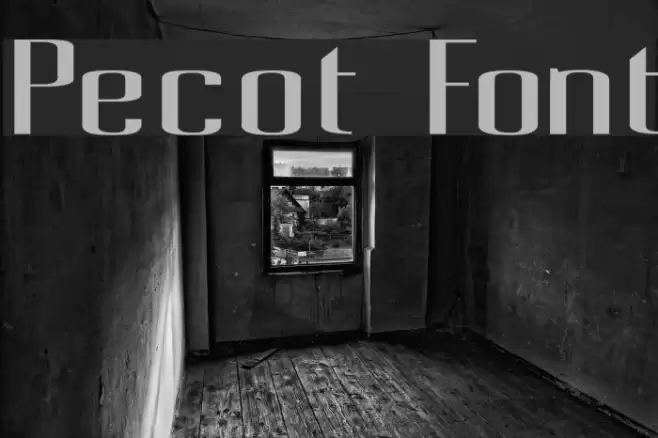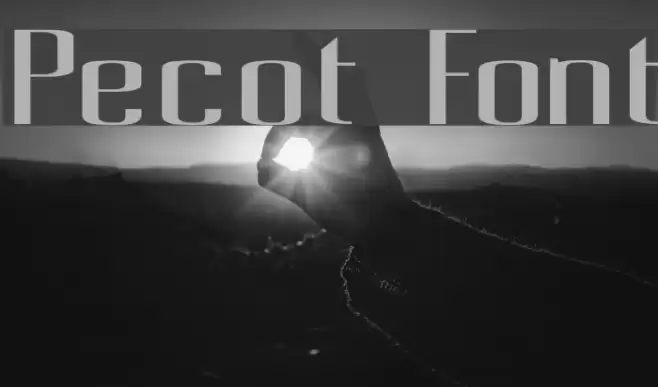
Pecot Font
Pecot Description
This font features a modern and sleek design with a geometric structure. The characters are tall and narrow, giving it a condensed appearance. The uppercase letters have a strong presence with sharp angles and clean lines, while the lowercase letters maintain a consistent style with slightly softer curves. The numerals are bold and easily readable, matching the overall aesthetic of the font. Special characters are designed to complement the main character set, maintaining the same angular and contemporary feel. This font is suitable for projects that require a modern and professional look.
A modern, geometric font with a tall, condensed style from Uncategorized fonts.
- Proposed Projects: Ideal for branding, editorial design, advertising, and digital interfaces.
- Use Case: Headlines, Logos, Branding